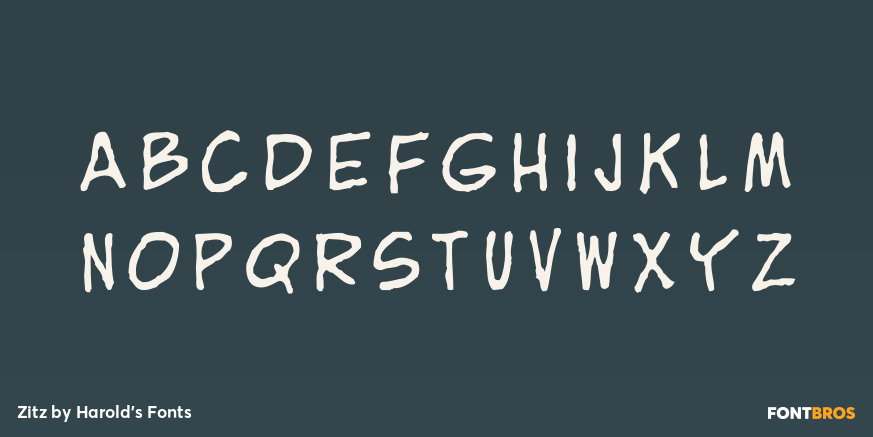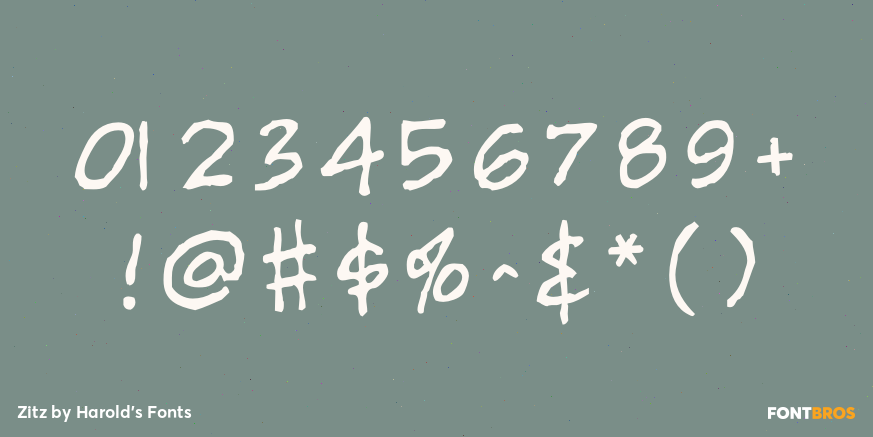
Zitz
Font Family by Harold's Fonts
ZITZ is a cartoon font, inspired by the hand lettering in the King Features daily strip Zits by Jim Borgman and Jerry Scott. According to Robert C. Harvey’s thoughtful "Children of the Yellow Kid: The Evolution of the American Comic Strip," Zits is a “teenage strip…ostensibly drawn by Borgman and written by Scott…. Borgman produces the final art.” The tall, tight lettering and expressive drawing style of Borgman’s political cartoons has long appealed to me; since 1997, “Zits” has represented a daily dose of his art.
The scratchy outlines of the letters reflect both the artist’s pen and the texture of newsprint. (I collected dozens of daily strips to get a full font.)
Contains two versions of each capital letter (in the upper and lowercase positions) for a more random look.